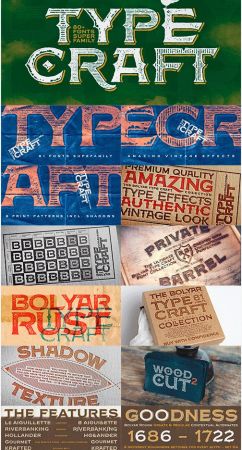
A super font family mastered to an unparalleled level of precision, Bolyar TypeCraft is a collection multiple textured styles that represent historical printing techniques.
Bolyar TypeCraft provides a broad range of advanced typographical features: Multiple subfamilies each packing the two
classic Bolyar styles - Regular (N) and Ornate (O). Five weights per style ranging from thin (100) to
black (900) with full multilingual support for all Latin based languages as well as Cyrillic.